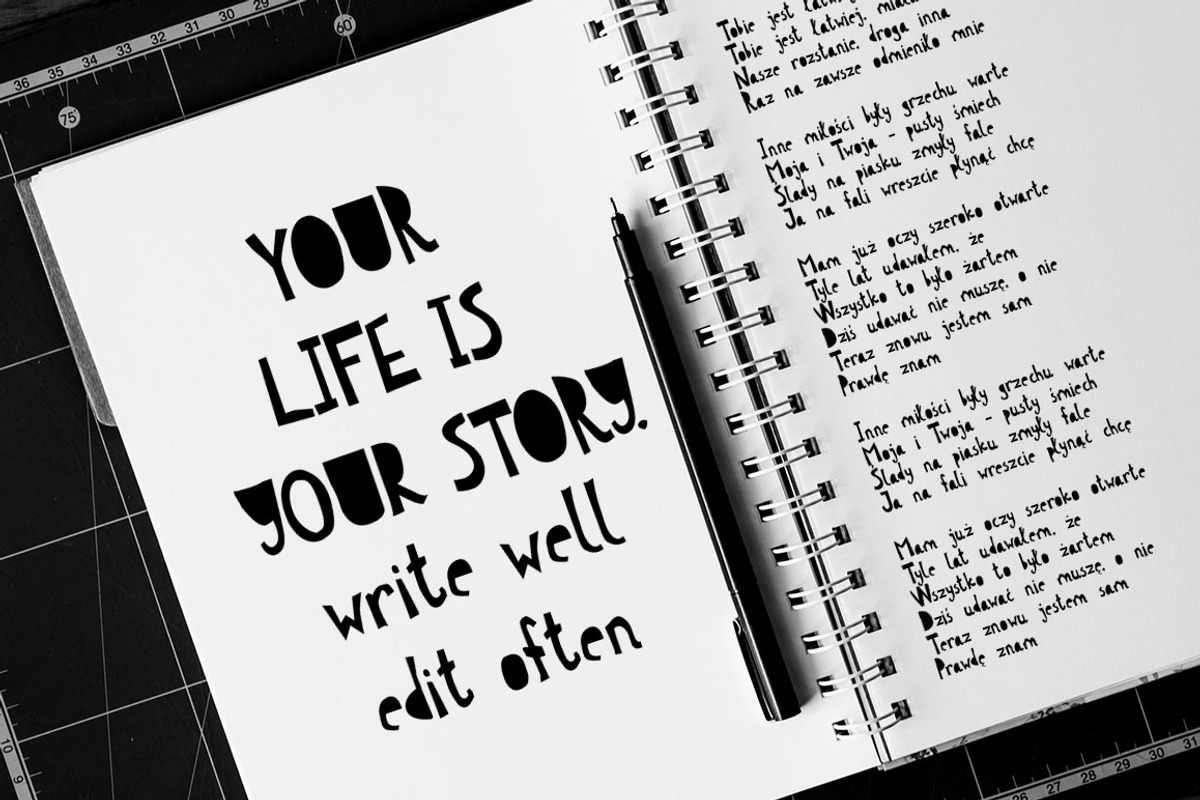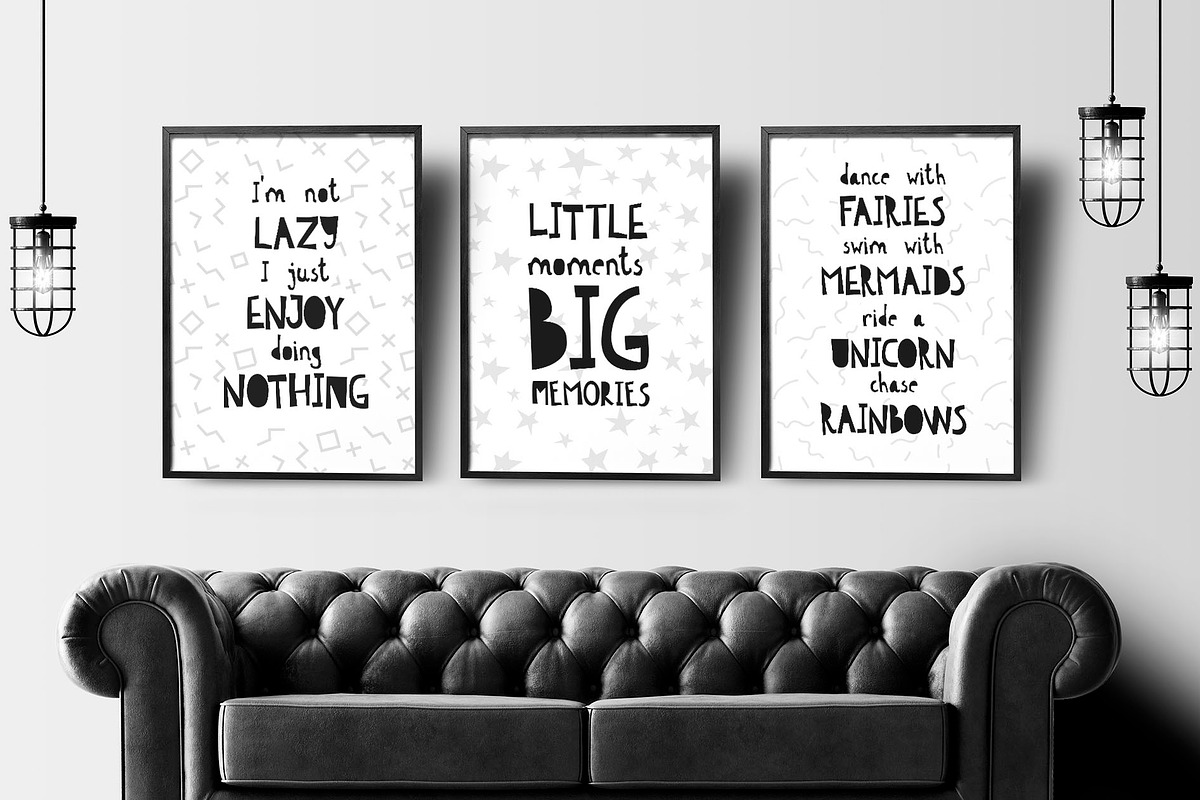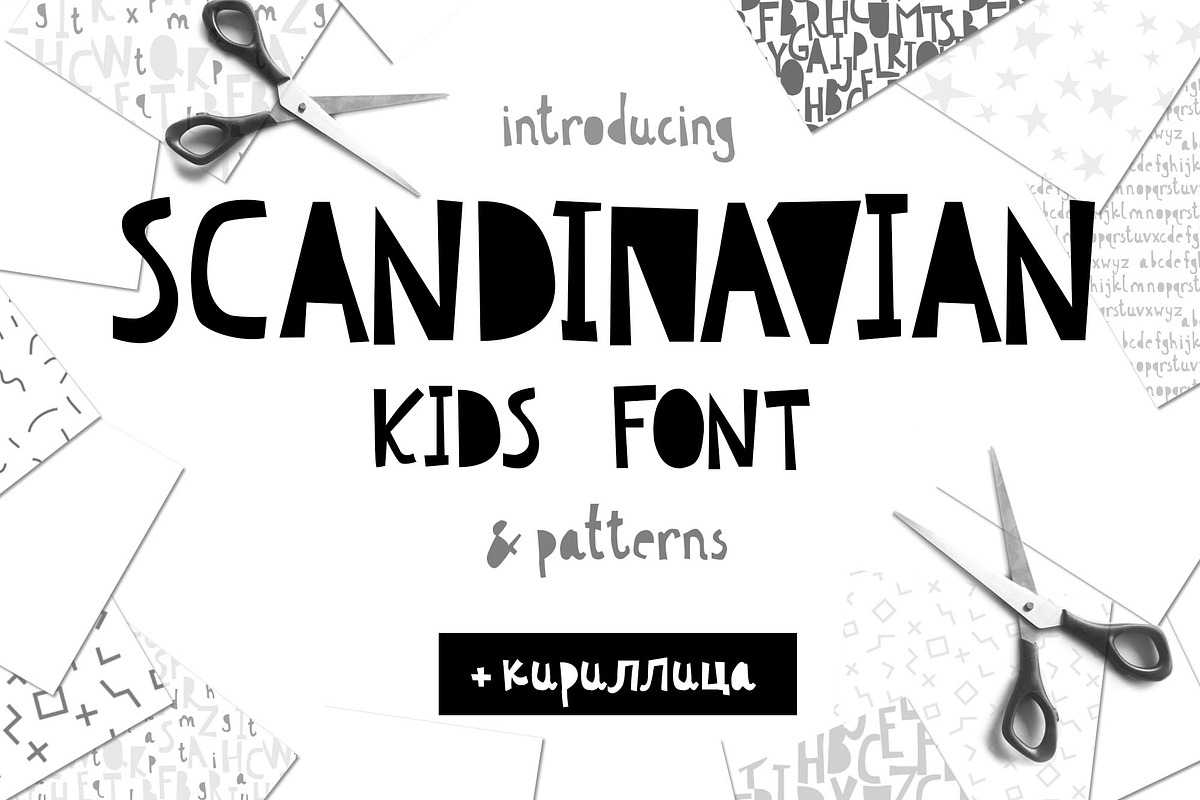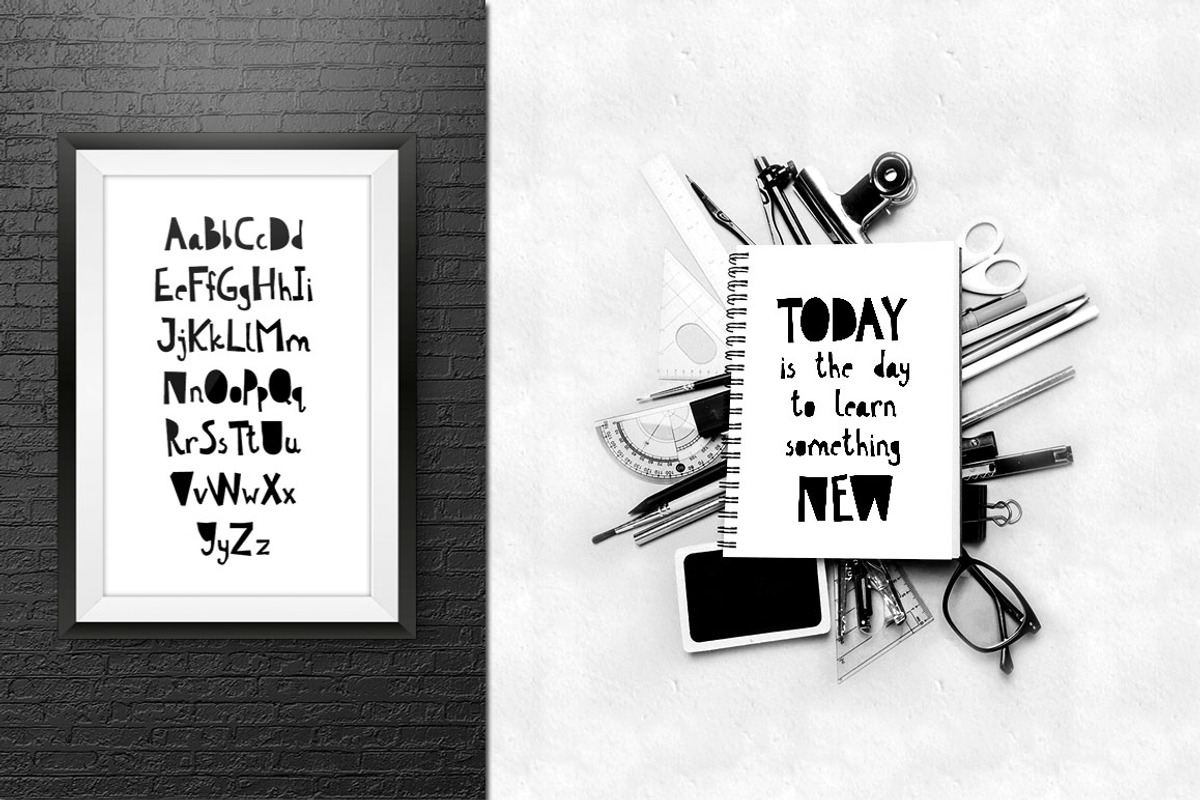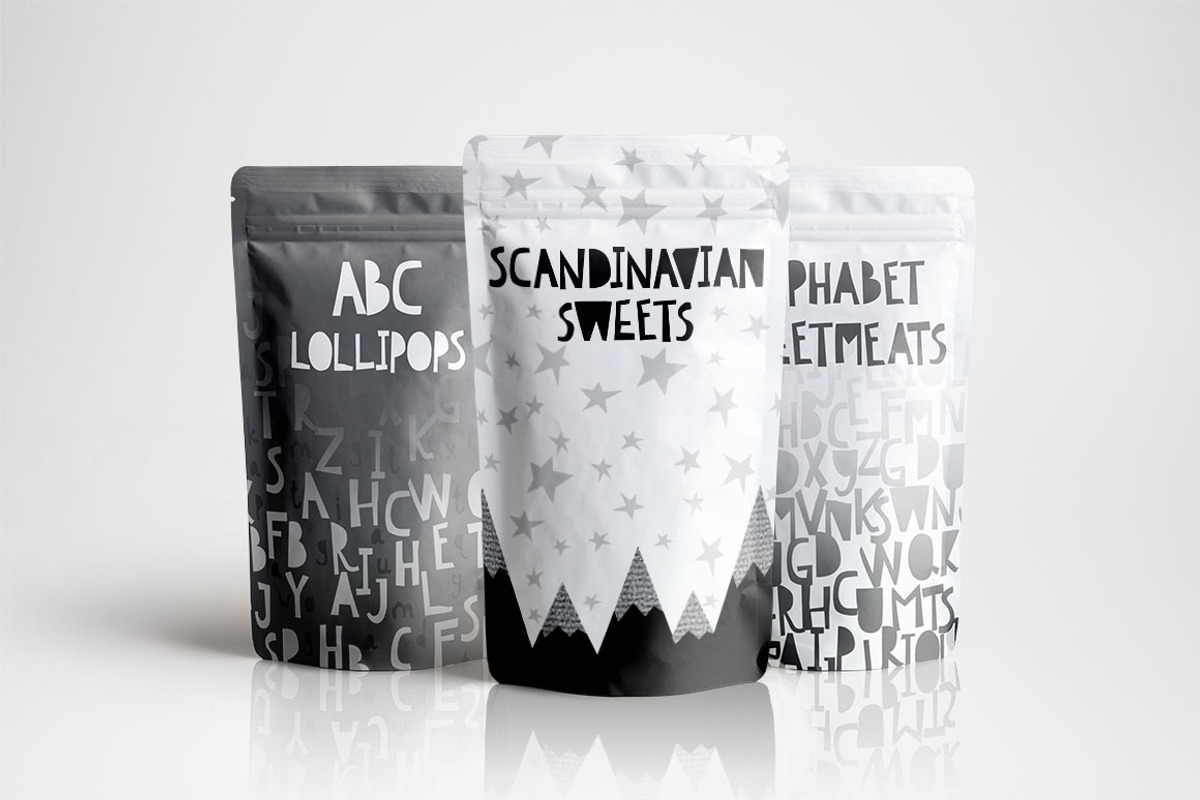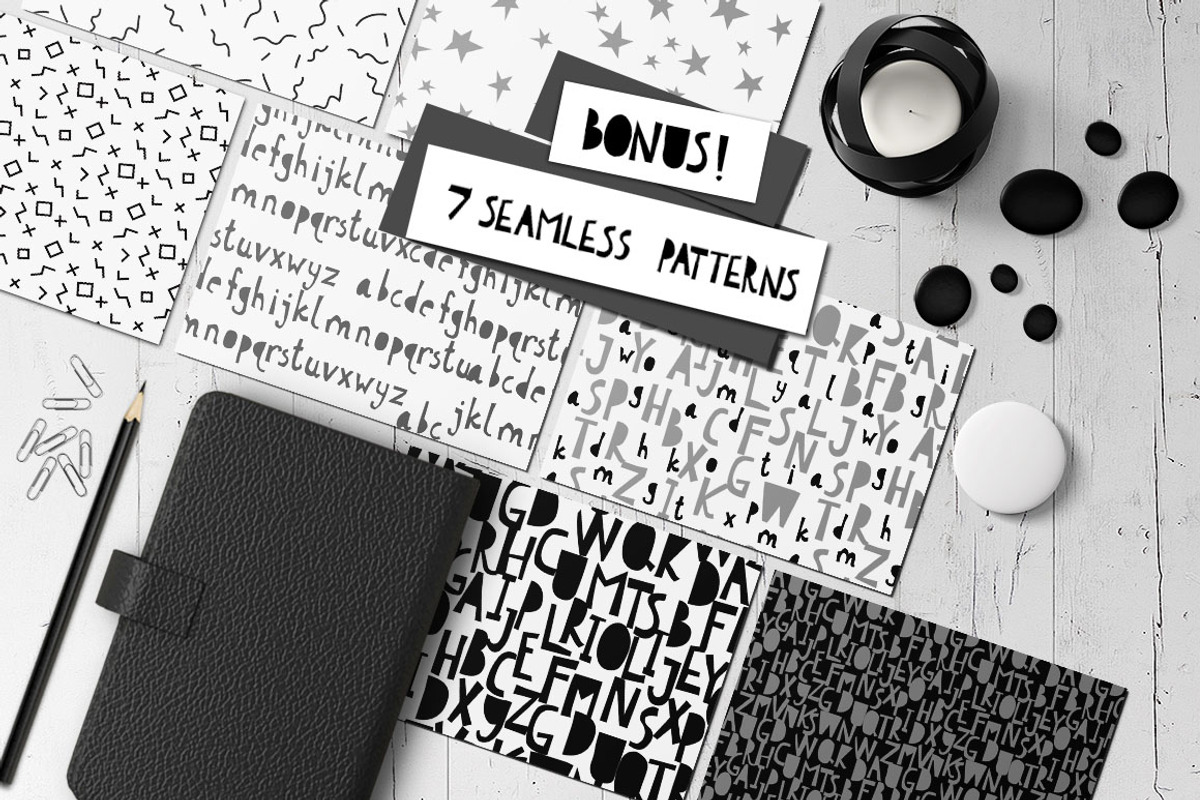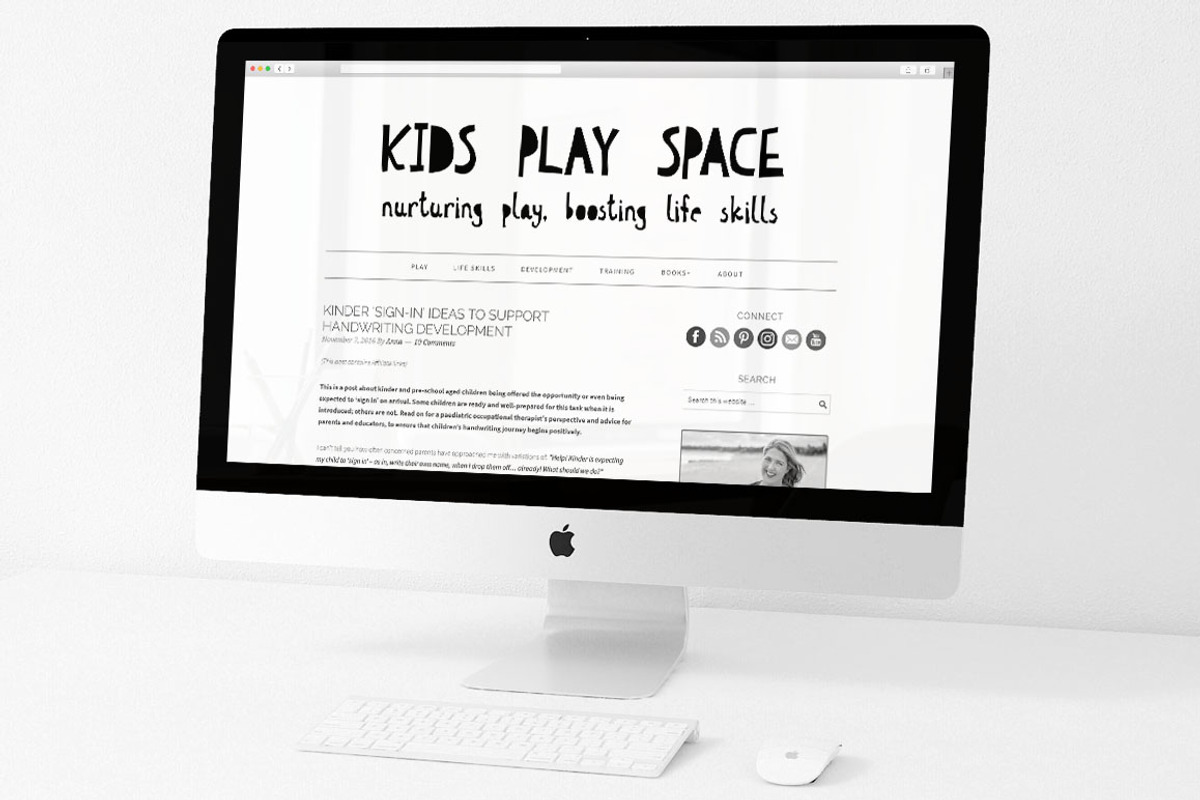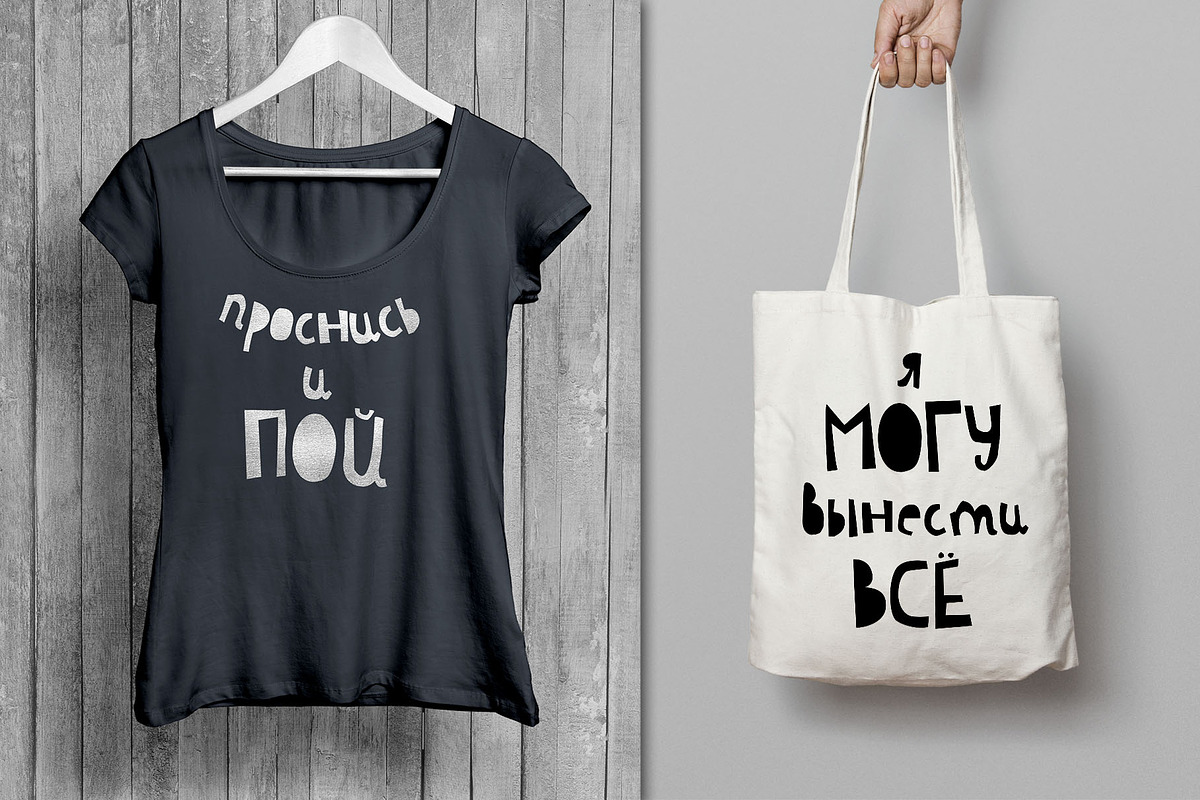
Scandinavian fun kid's font Cyrillic
I'm happy to present you UPDATED Scandinavian Cyrillic kid's font. Now it contains the Cyrillic glyphs and double letters in uppercase and lowercase.
Each letter of the font was carefully cut out of paper with scissors by little childish hands. And now it's turned into a font :)
The Scandinavian Cyrillic kids font includes main uppercase, alternative uppercase, and double letters for uppercase and lowercase. It will be perfect for use in all your fun design projects: logos, labels, packaging design, blog headlines. Also, it will look great on mugs, cards, kid's books headlines, or other typographic projects.
Multilingual Support for 32 languages: Latin glyphs for Afrikaans, Albanian, Basque, Bosnian, Catalan, Danish, Dutch, English, Estonian, Faroese, Filipino, Finnish, French, Galician, Indonesian, Irish, Italian, Malay, Norwegian Bokmål, Portuguese, Slovenian, Spanish, Swahili, Swedish, Turkish, Welsh, Zulu.
And Cyrillic glyphs support for Russian, Belorussian, Bulgarian, Ukrainian, and Kazakh languages.